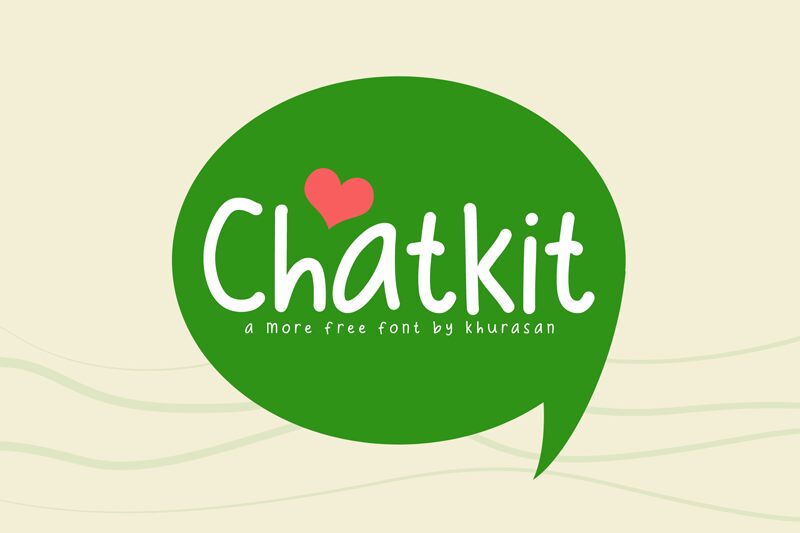
Chatkit
Chatkit, a charming creation by Khurasan, is an exquisite handwritten font that adds a touch of elegance to any project. Its semi-light weight and semi-condensed width make it perfect for various designs.
For branding materials, Chatkit's subtly graceful strokes lend sophistication to logos and packaging. In digital media, this font's gentle curves bring warmth to websites and social media posts. With Chatkit, invitations and stationery acquire a delightful personal touch. In the world of fashion, this font's delicate yet legible style elevates magazine layouts and editorial spreads.